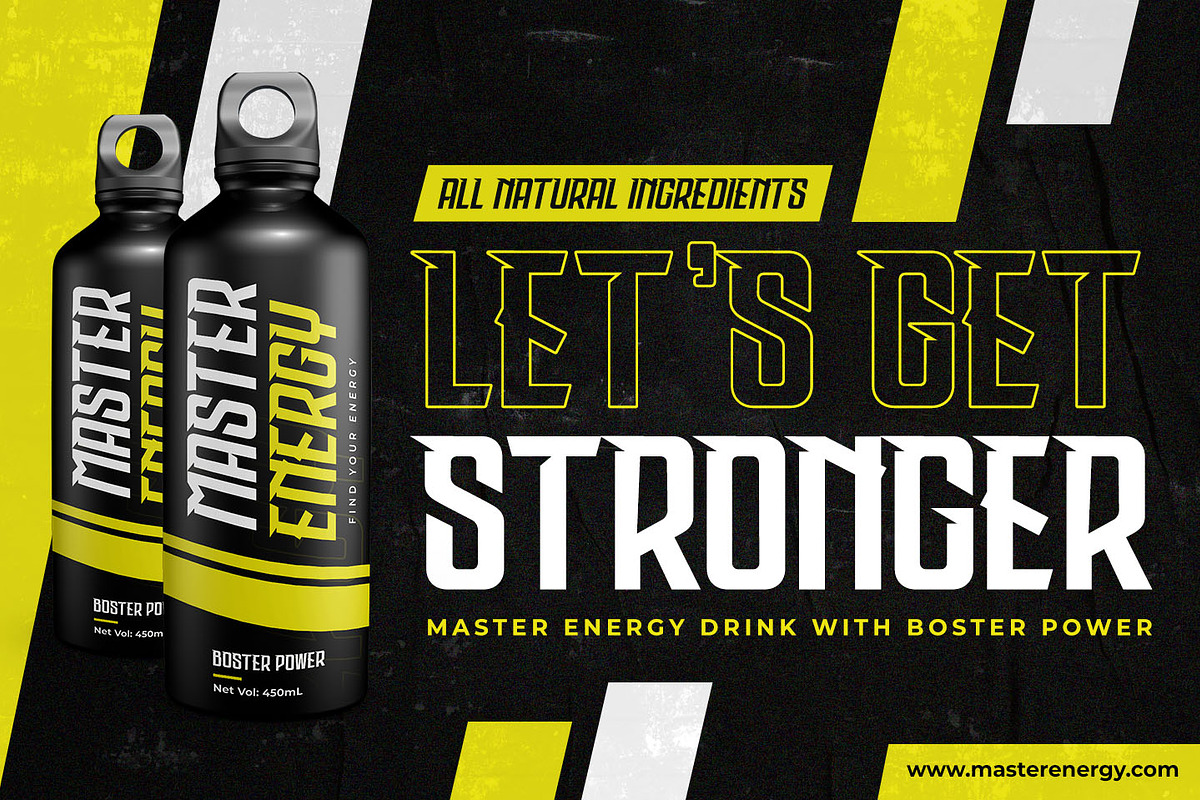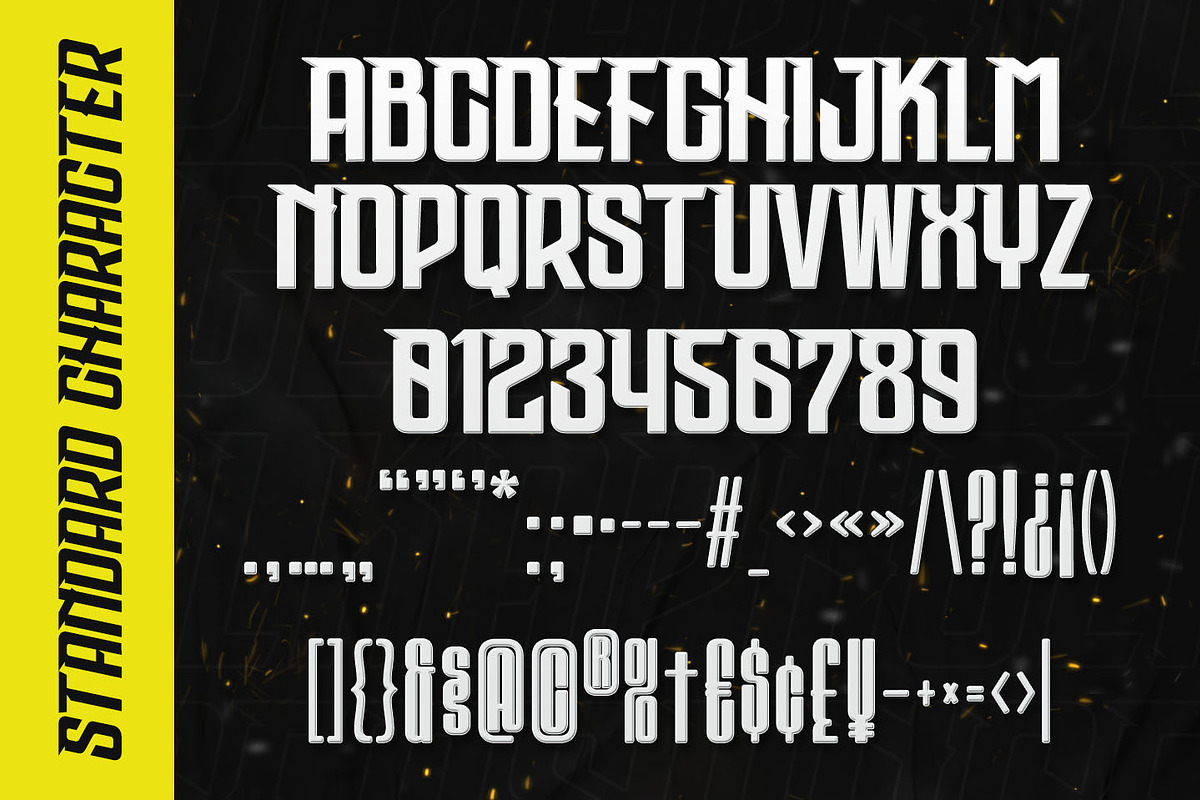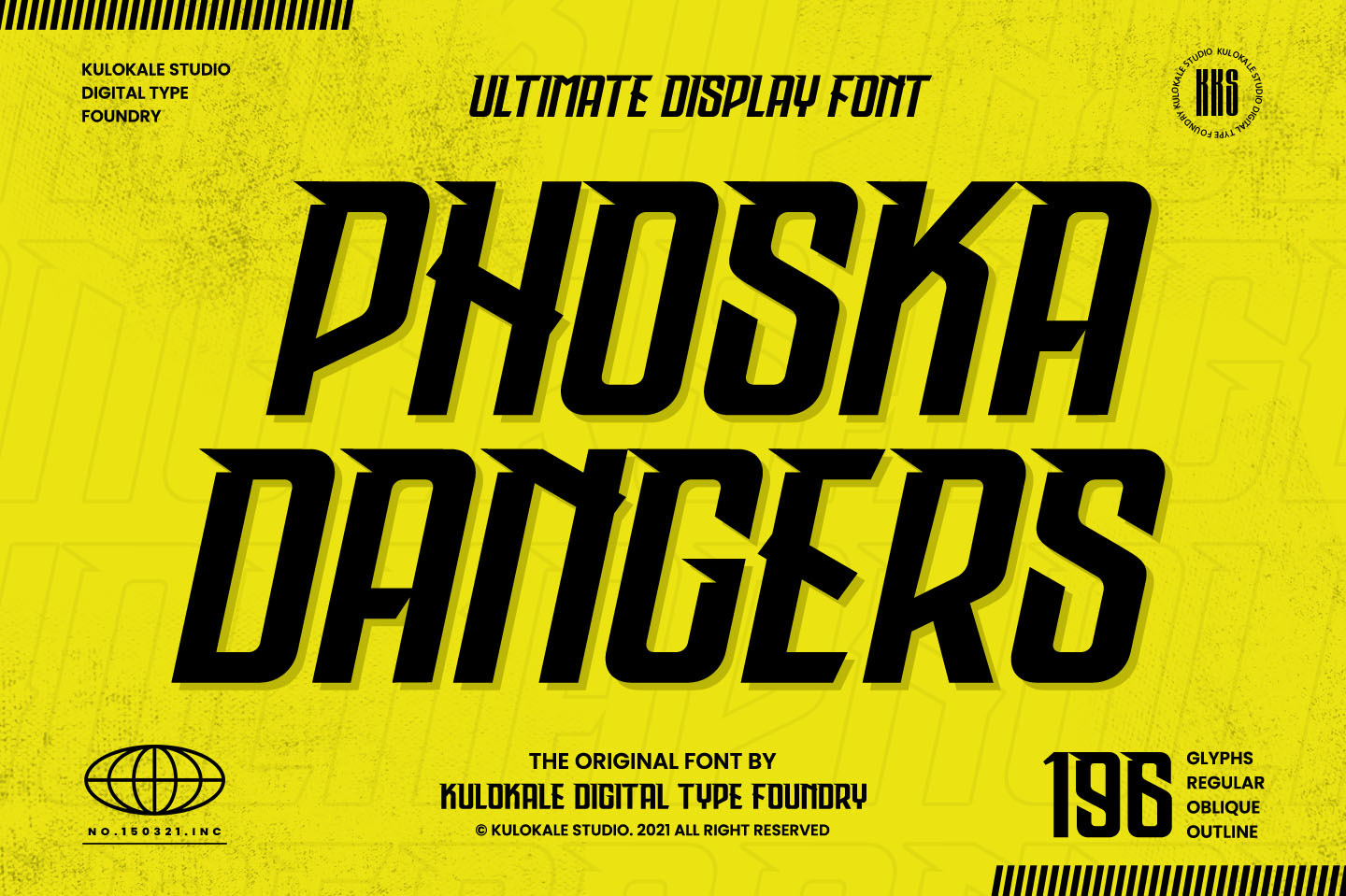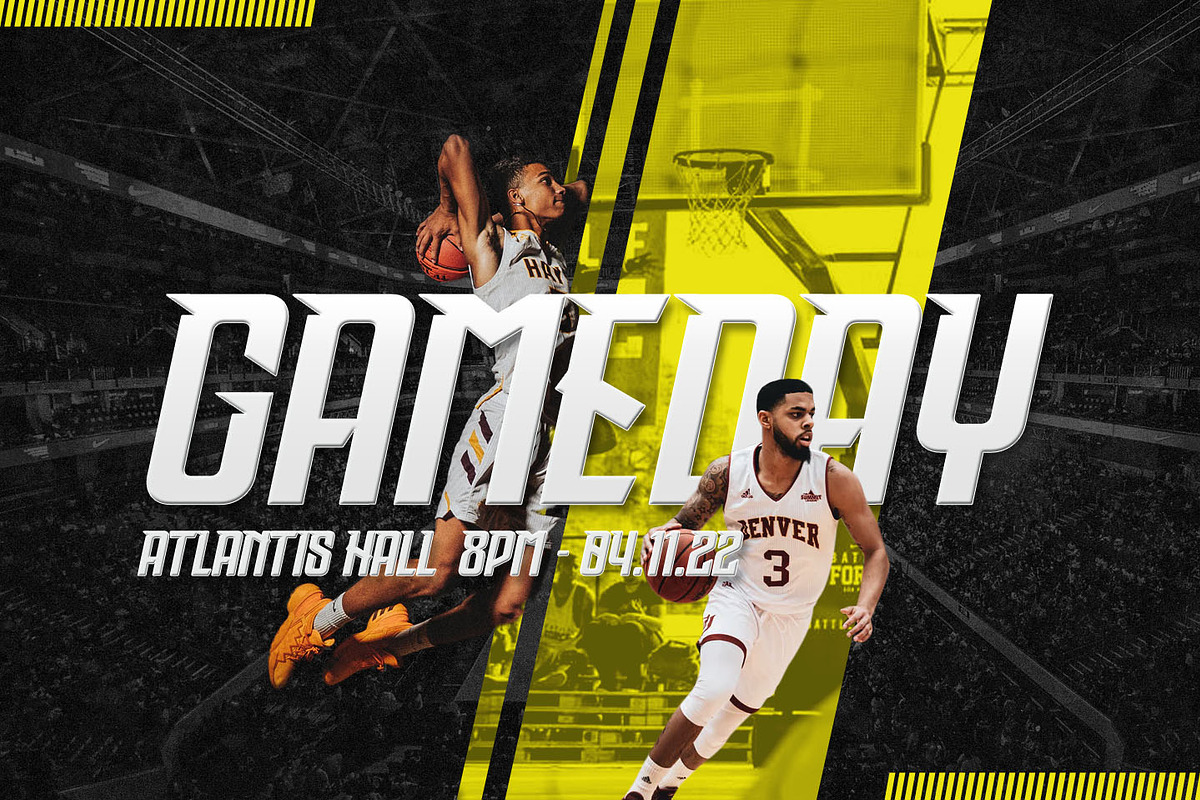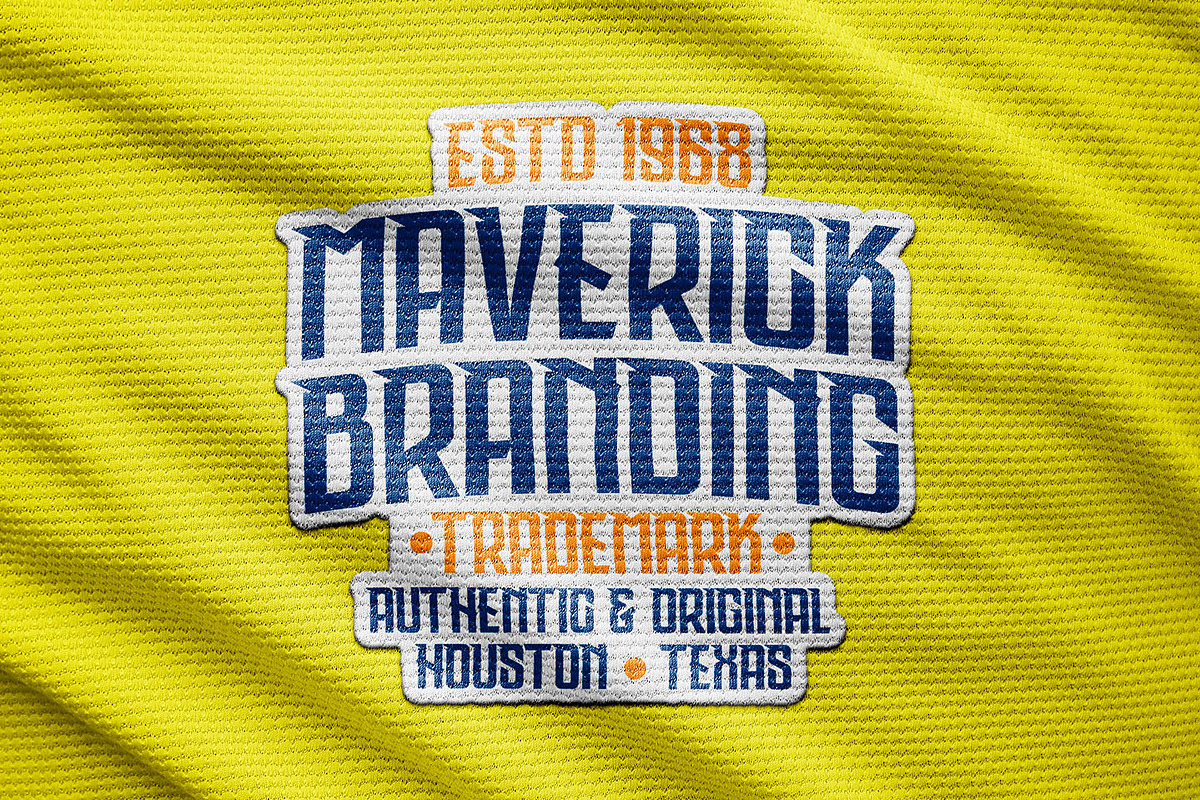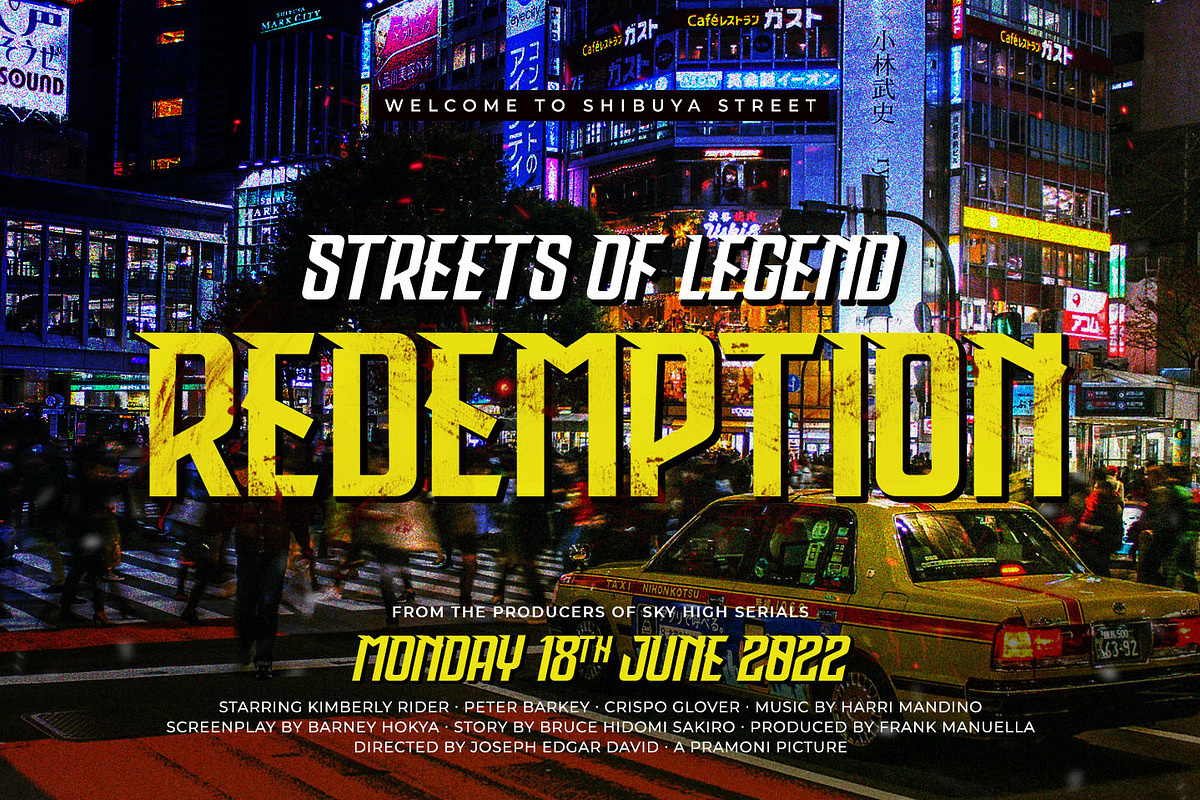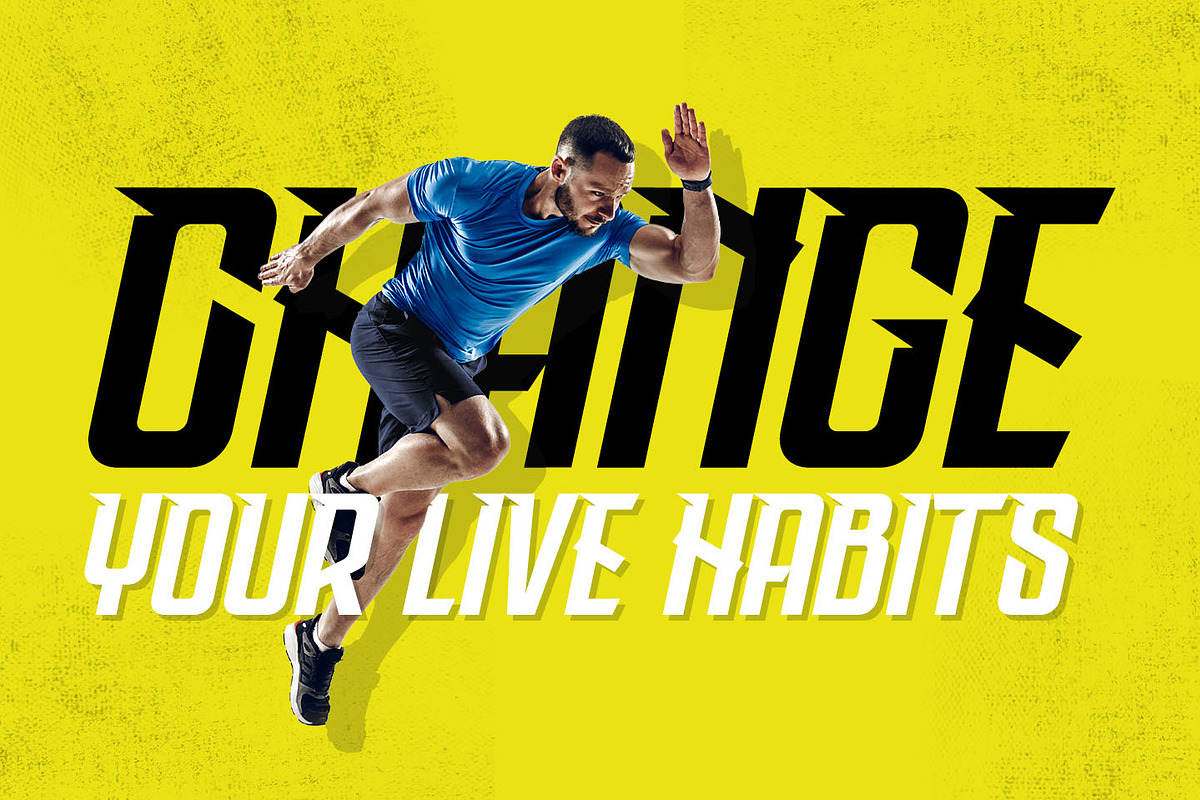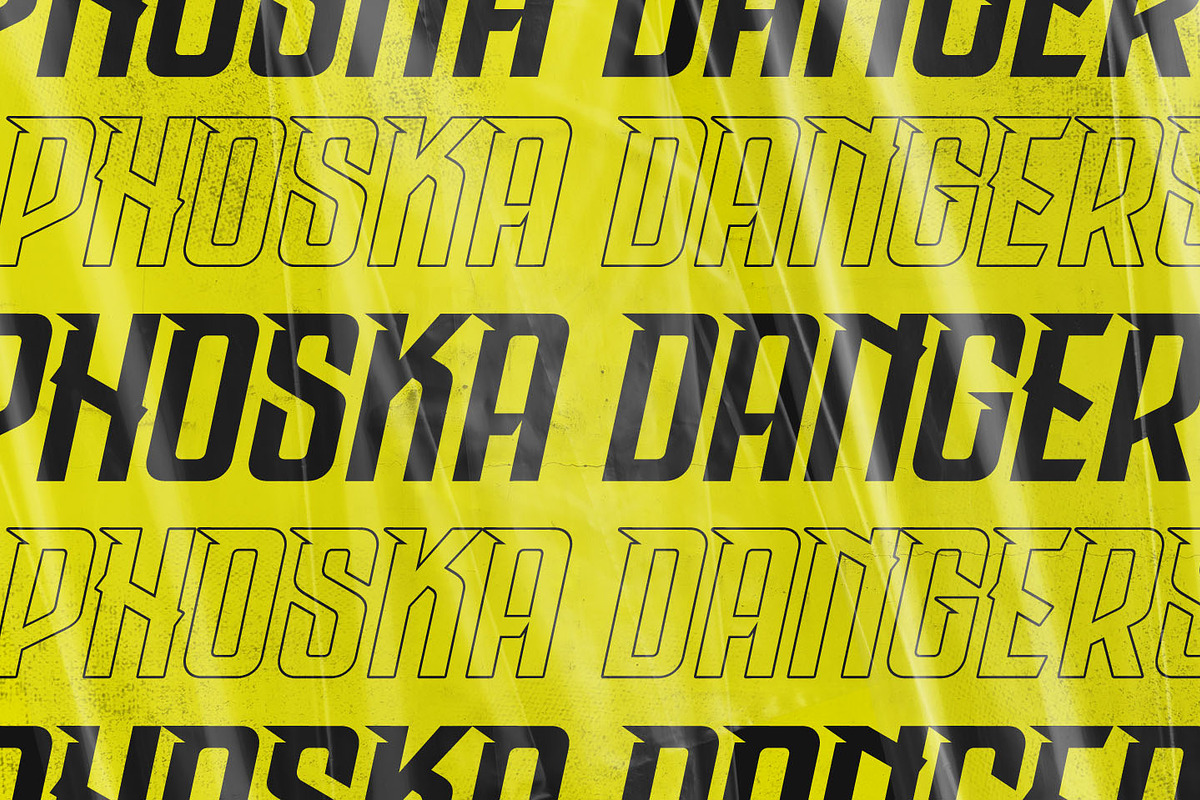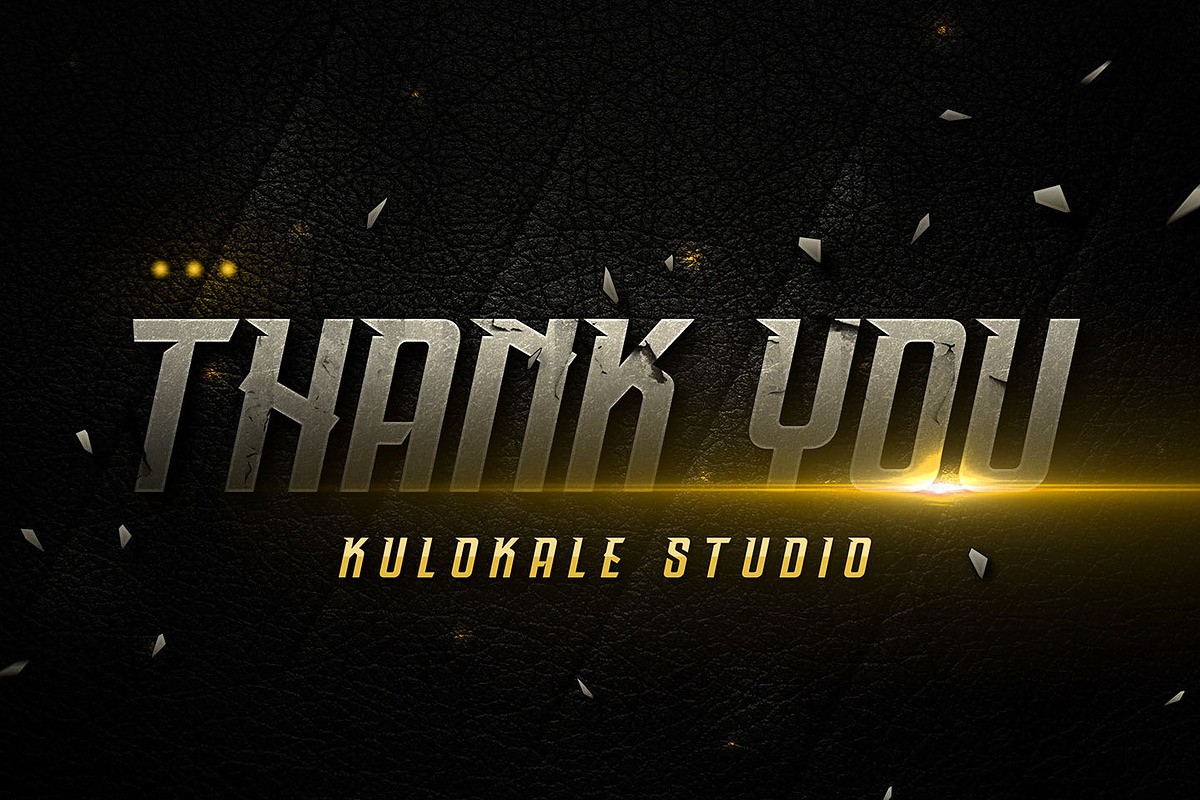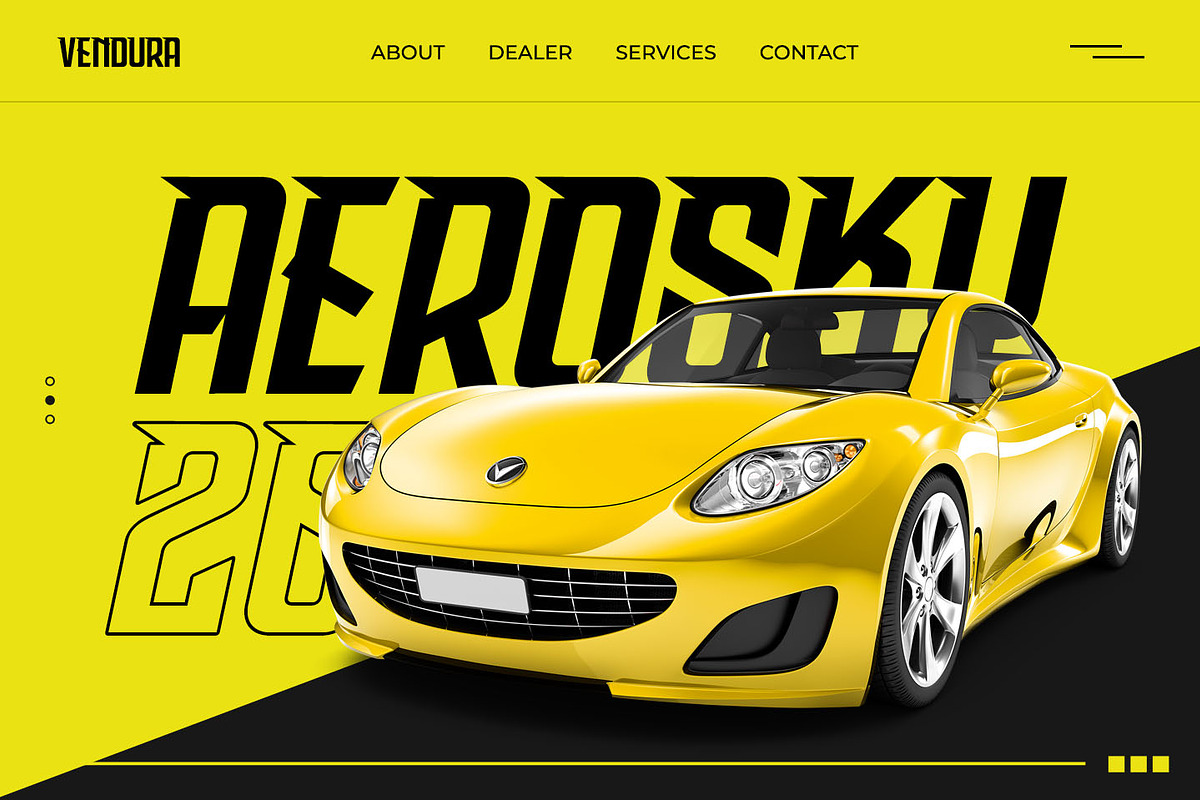
Phoska Dangers - Sports Display Font
Phoska Dangers is an sports sans serif display font, and with a style that is very different from the others. This font comes in four styles, Regular, Outline, Oblique and Oblique Outline Version.
Phoska Dangers is well-suited for posters, social media, headlines, magazine titles, clothing, large print formats - and wherever you want to be seen. Inspired by the style of design that is currently popular, and this is the answer to all the needs of every idea that you will pour in this modern era.